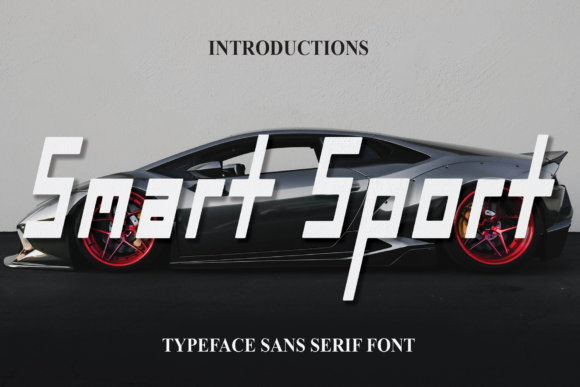
Dive into the realm of the Smart Sport Font, a strikingly bold and futuristic display font that will ignite your designs with a surge of energy. This remarkable font, meticulously crafted by the talented andikastudio, exudes a captivating aura, instantly commanding attention and leaving an indelible mark on your projects.
With its dynamic and robust structure, the Smart Sport Font stands tall among its peers. Its sharp angles and geometric precision evoke a sense of power and determination, making it the perfect choice for projects seeking to convey strength and authority. Unleash your creativity and witness the transformative impact of this font as it elevates your designs to new heights of visual appeal.
Imagine your posters, flyers, and print materials adorned with the Smart Sport Font. Its striking presence will captivate audiences, leaving them in awe of your design prowess. This font possesses an inherent ability to command attention, making it an indispensable tool for designers seeking to make a lasting impression.
Step into the world of cutting-edge design and embrace the Smart Sport Font's versatility. Its boundless applications extend far beyond traditional print media, reaching into the realm of digital design with equal finesse. Craft captivating logos, website headers, and social media graphics that radiate personality and leave a lasting impression on your audience.
With the Smart Sport Font as your ally, you unlock a world of endless possibilities. Its innate adaptability allows you to seamlessly integrate it into a diverse range of projects, from futuristic game designs to dynamic sports apparel designs. Unleash your imagination and let this font guide you towards design excellence.